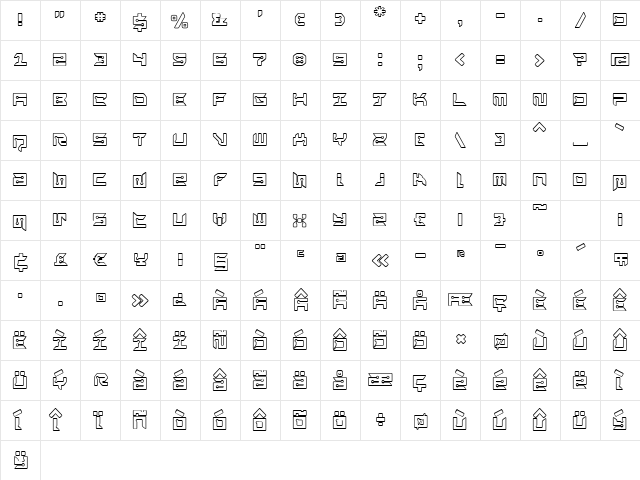
RayzorBlunt Outline Regular
Design Context for RayzorBlunt Outline Typeface
RayzorBlunt Outline brings ornamental detail and strong personality to headlines and identities, where visual impact matters more than quiet functionality.
Font Pairing: Pair with a clean neutral sans-serif for body copy to let RayzorBlunt Outline's character lead without overwhelming the composition.
Pro Tip: Treat RayzorBlunt Outline as the centrepiece of your typographic hierarchy. One strong heading set in a decorative face can carry an entire layout.